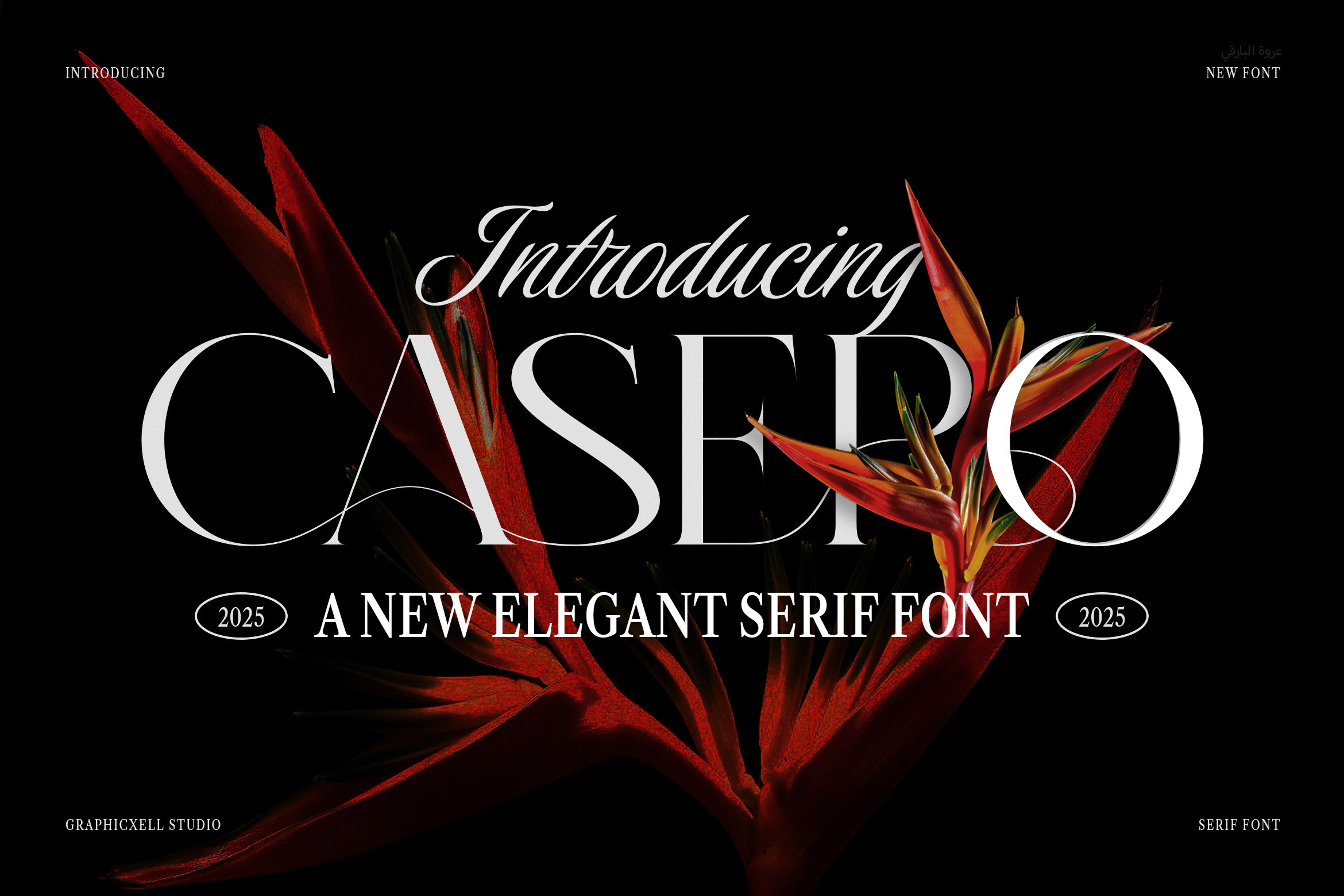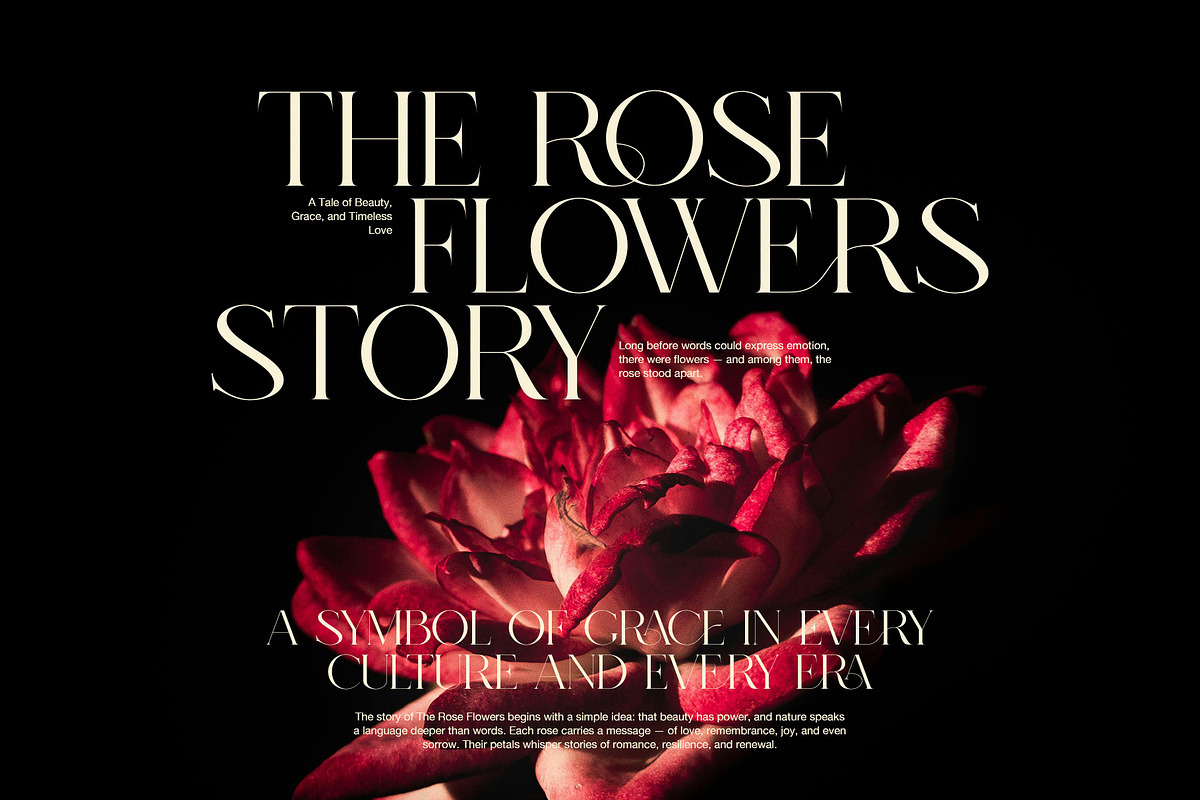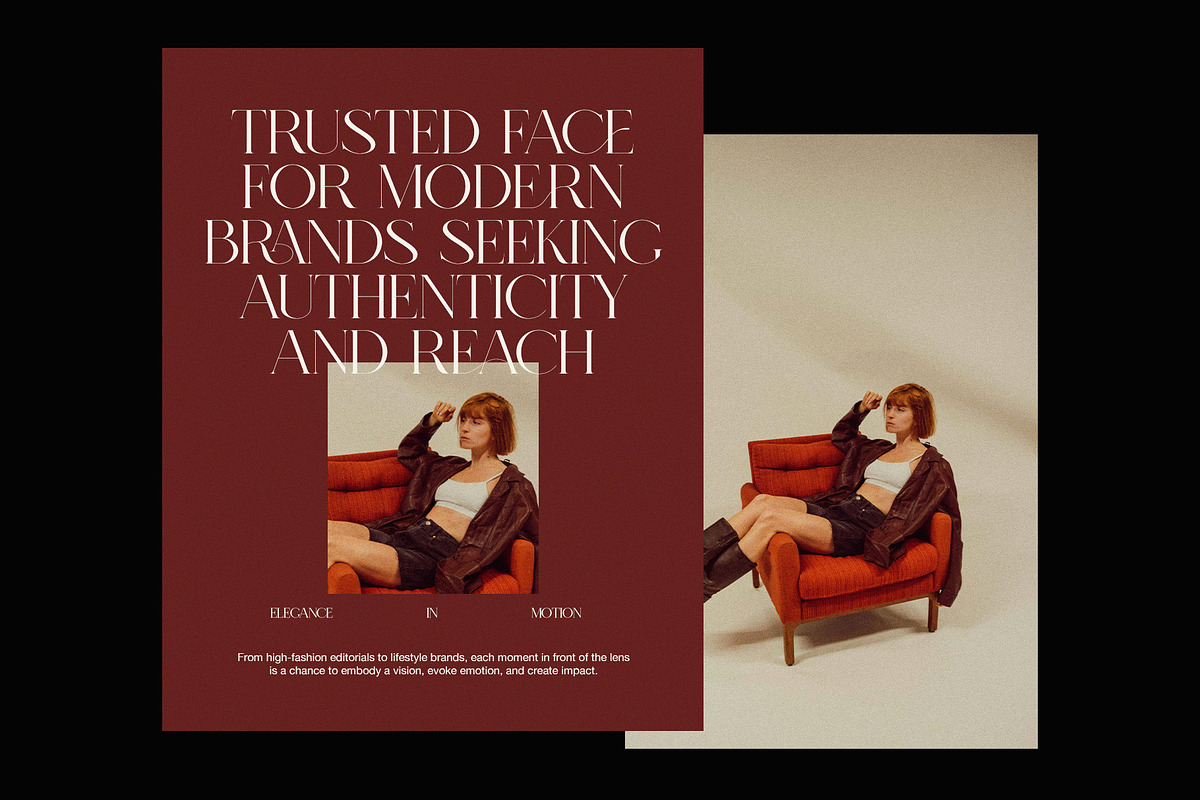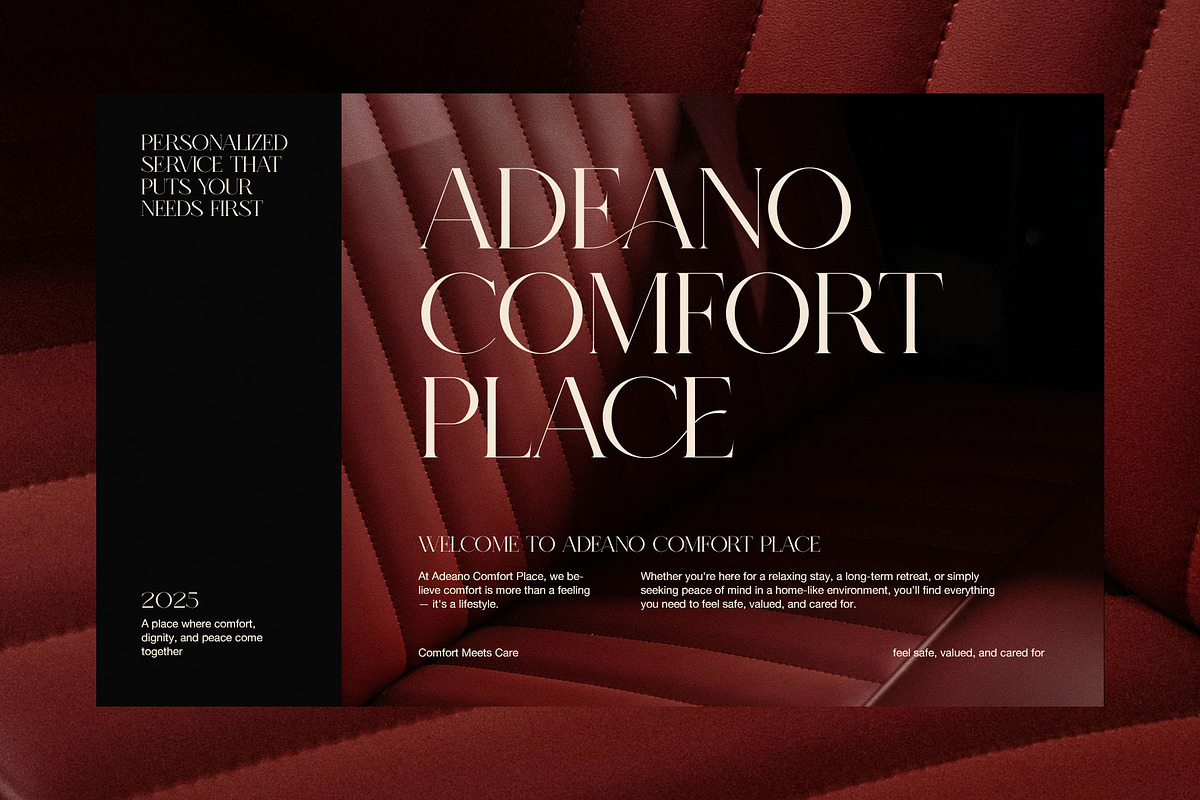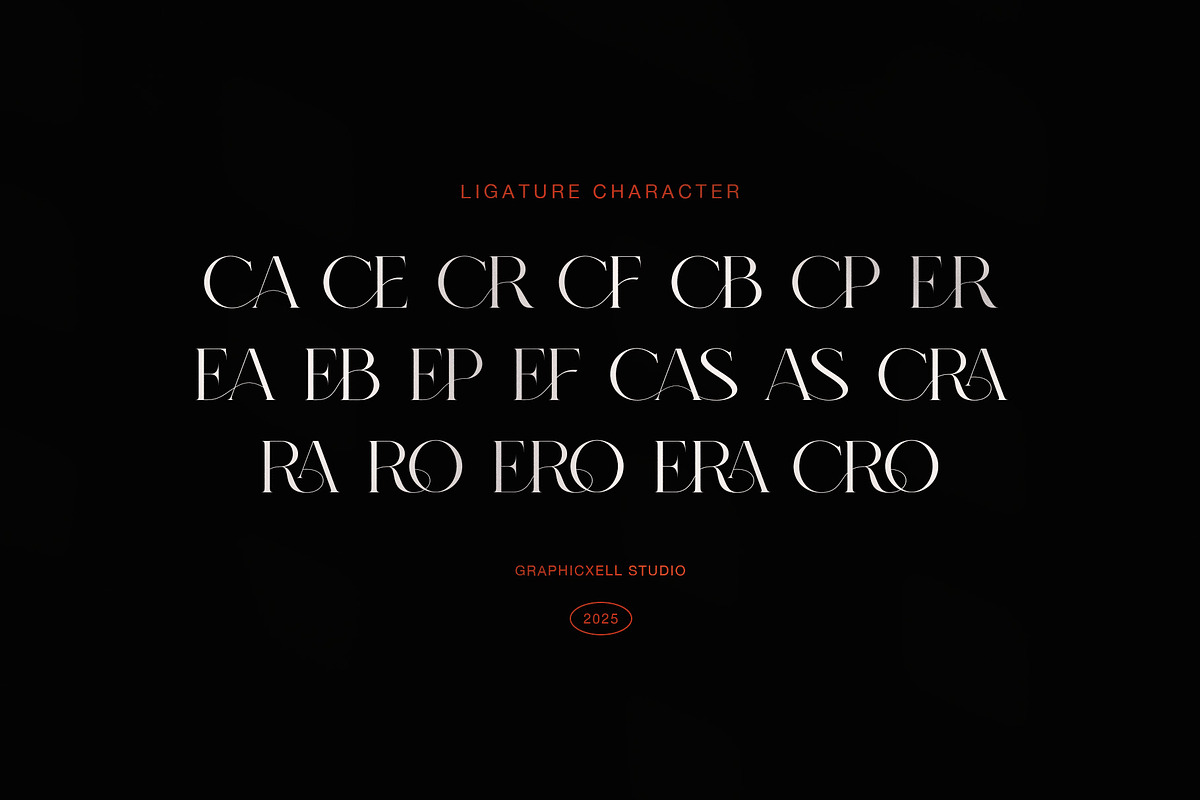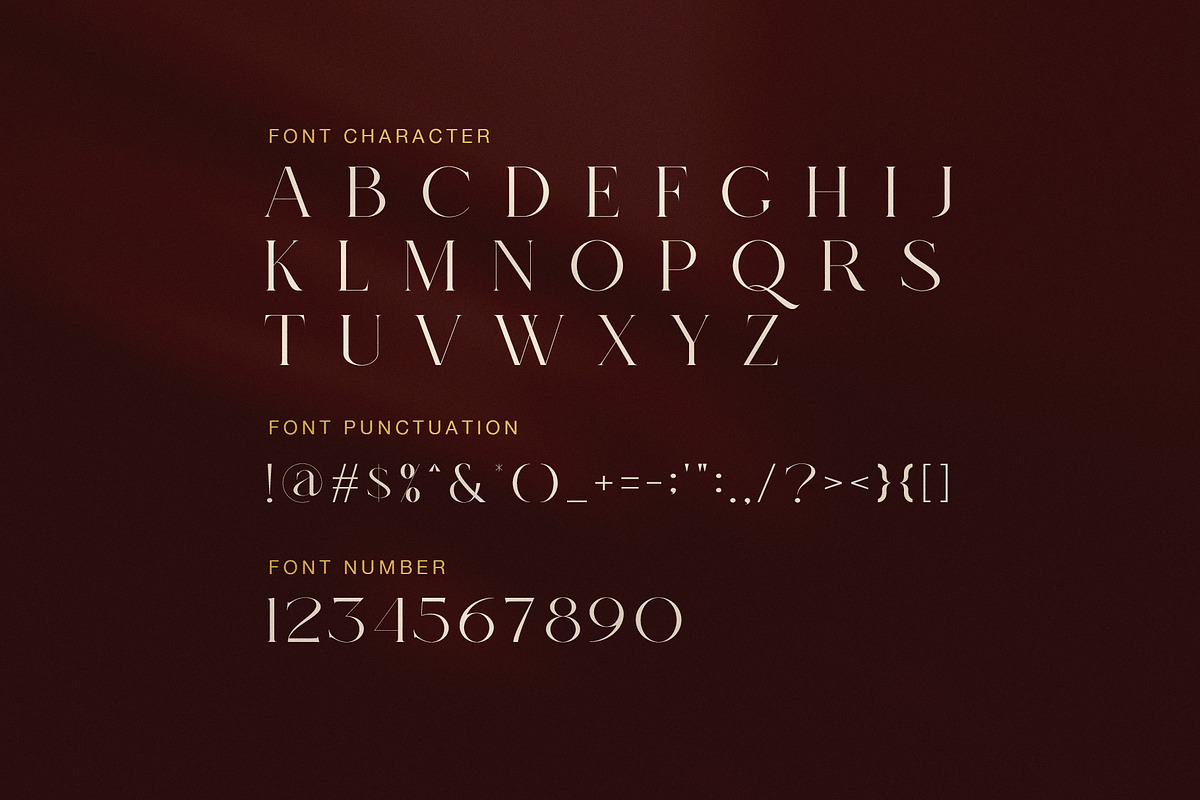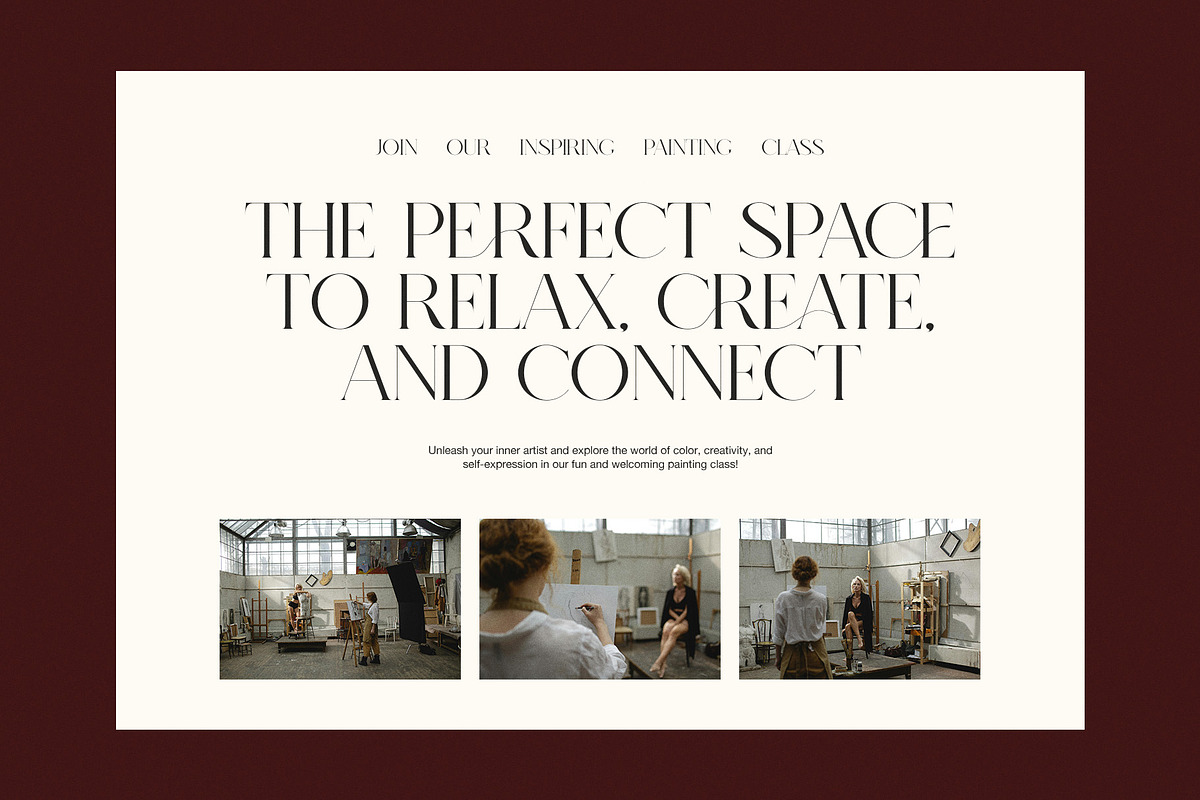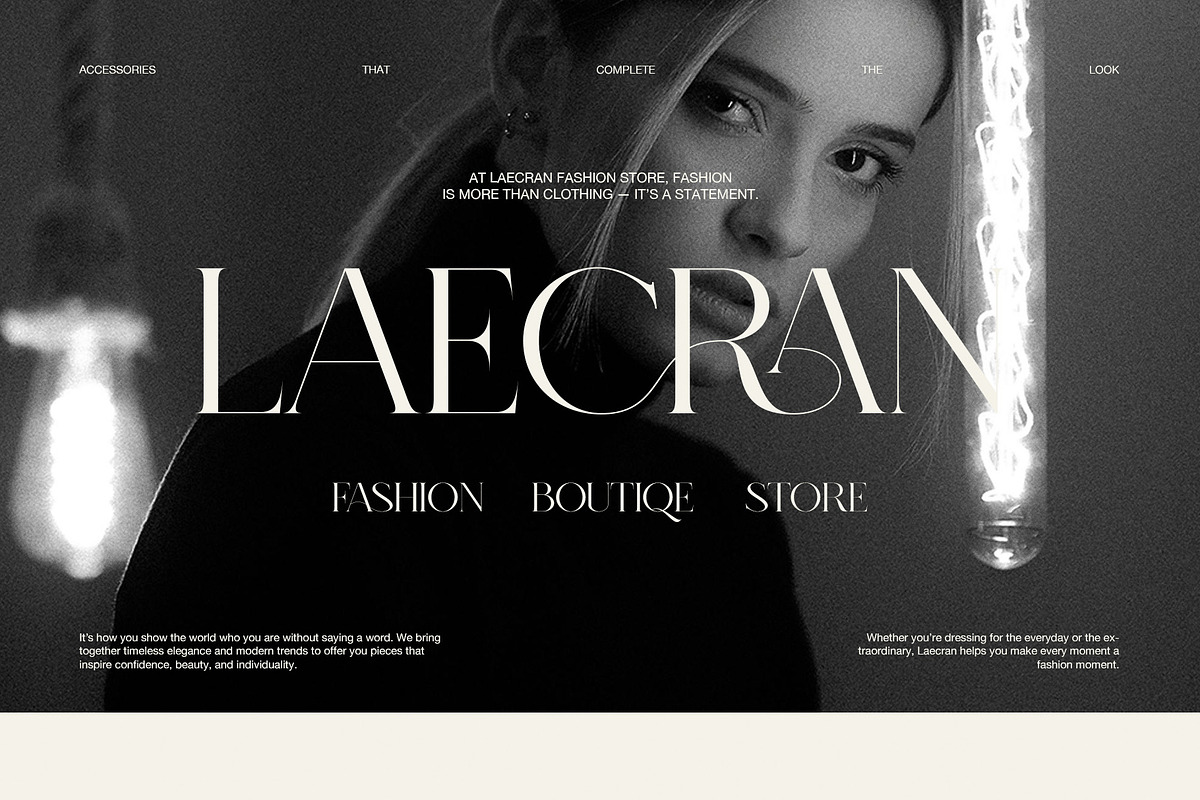
Casero Elegant Serif Font
Casero Elegant Serif Font is a refined typeface designed to elevate your creative work with elegance, precision, and timeless appeal. It blends classic shapes with a fresh modern twist, allowing every design to stand out gracefully. Because of its balance between strength and softness, Casero feels both luxurious and contemporary at once.
This elegant serif font was carefully crafted to combine beauty and function. Therefore, it works beautifully across a wide range of applications — from branding and editorial layouts to packaging and invitations. Whether you design for fashion, lifestyle, or digital media, Casero adds a distinctive and professional tone that captures attention instantly.
Key Features of Casero Font:
Elegant and modern serif design
Smooth contrast between thick and thin strokes
Stylish ligatures for creative flexibility
Ideal for branding, fashion, and editorial use
Perfect for invitations, packaging, and web design
Includes uppercase letters, punctuation, and numerals
Casero’s curves and refined details create a sense of luxury that feels effortless. Moreover, its soft transitions and artistic proportions give each character a rhythm that enhances readability. As a result, every line of text appears graceful, polished, and naturally balanced.
In addition, Casero provides excellent versatility. You can pair it easily with minimal sans serifs or use it as a striking headline font. Because it maintains visual harmony, it adapts well to both print and digital projects. Furthermore, its stylish ligatures allow you to design logos and titles that feel exclusive and custom-made.
Choose Casero Elegant Serif Font if you want to express sophistication with simplicity. It’s not just a typeface; it’s a creative tool that transforms ordinary layouts into timeless works of art. With Casero, your designs will always look modern, elegant, and unforgettable.